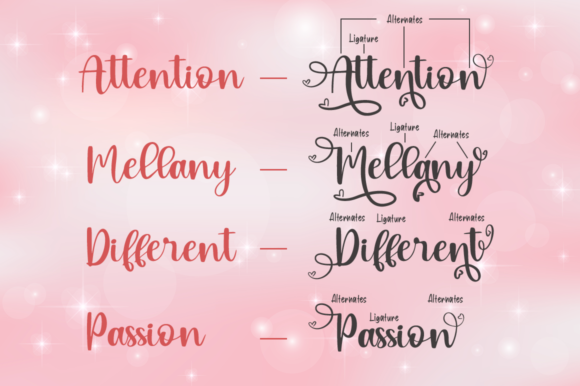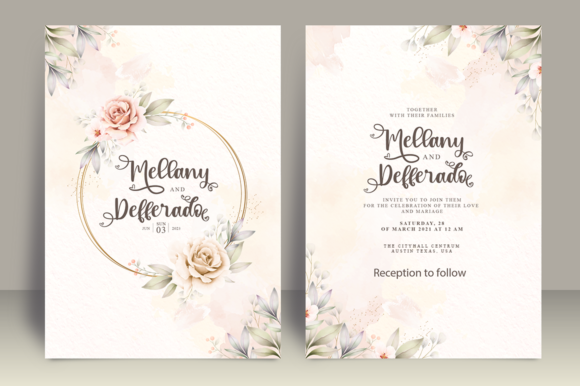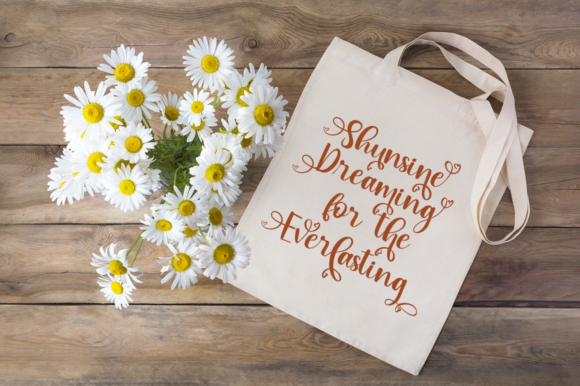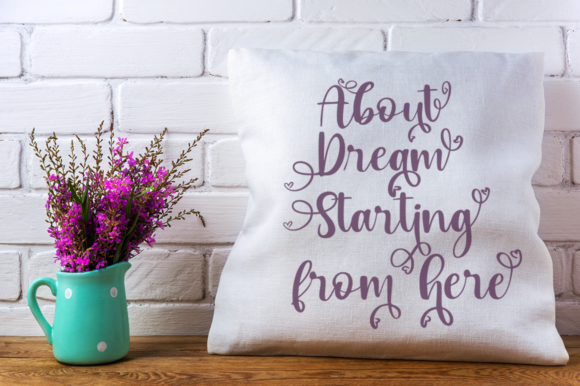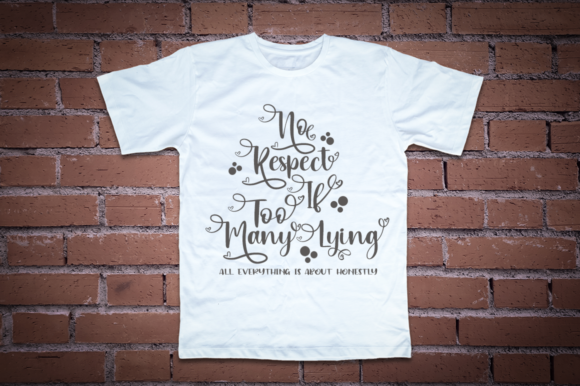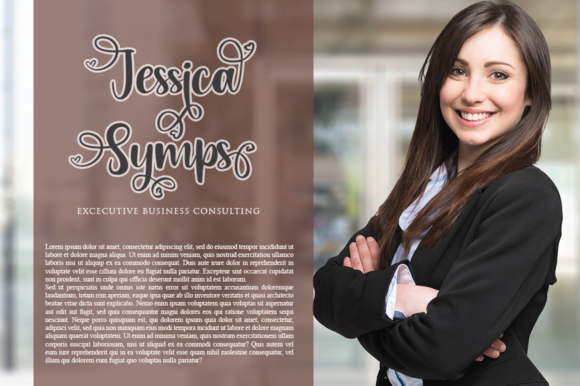
The Quest for the Perfect Font: Discovering Authentic Heart
Ah, the eternal search for the perfect font! I recall a particularly frustrating design moment when I was working on a romantic getaway brochure for a client. I had a clear vision of what I wanted to convey – warmth, playfulness, and a sense of adventure – but my font choices just weren’t cutting it. That was until I stumbled upon Authentic Heart, a sweet, all-round, and flexible handwritten font that completely transformed my project. In this article, I’ll share my love for Authentic Heart, its features, and how to make the most of it in various design platforms.
An Honest Review of Authentic Heart
- Warm and romantic feel ✅
- Highly flexible and versatile 🔄
- PUA encoded for easy access to glyphs and swashes 🔓
- Endless variations to keep your designs fresh and exciting 🌈
- Some users might find the font a tad too ornate for very minimalist designs ⚠️
- Limited use of uppercase letters, which can make it less suitable for headings 🔠
The Story Behind Authentic Heart
While the origins of Authentic Heart are shrouded in mystery, it’s clear that the designer was inspired by the beauty of handwritten scripts and the need for a versatile, modern font. Imagine a designer, sipping coffee in a quaint café, brainstorming ideas for a font that would capture the essence of love, friendship, and creativity. And so, Authentic Heart was born – a font that’s equal parts whimsical and sophisticated.
| Font Name | Authentic Heart Font |
| Author | Haksen |
PUA (Private Use Area) encoding allows font designers to include additional characters, glyphs, and swashes that aren’t part of the standard Unicode character set. This means you can access a wider range of design elements, making your creative projects more diverse and engaging.
Q: Is Authentic Heart suitable for body text or long-form content?
Authentic Heart is primarily designed for display purposes, such as titles, headings, or short paragraphs. While it’s possible to use it for body text, it might not be the most readable choice for long-form content.
Q: Can I combine Authentic Heart with other fonts?
Absolutely! Pairing Authentic Heart with complementary fonts can create stunning visual effects. Experiment with different font combinations to find the perfect balance for your design.